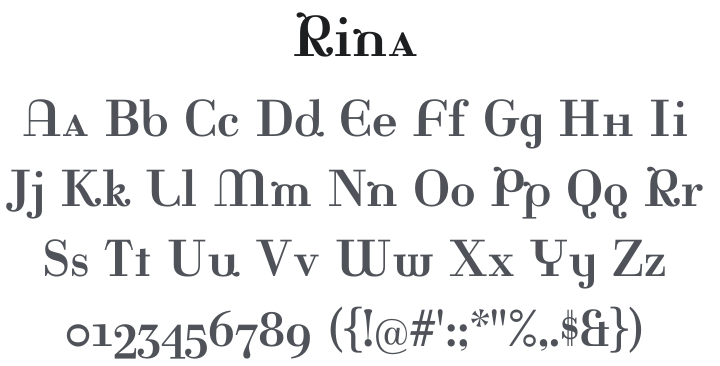
Rina Font
About Rina
Rina is a quirky didone display serif — the classic high-contrast Didot structure of razor-thin hairlines meeting bold thick strokes is all there, but with curious, unexpected elements that make it feel slightly eccentric and off-kilter. Its vintage-meets-modern character has genuine personality without sacrificing elegance. Perfect for fashion editorial, luxury branding, magazine mastheads, book covers, and any design needing timeless serif sophistication with a playful twist.